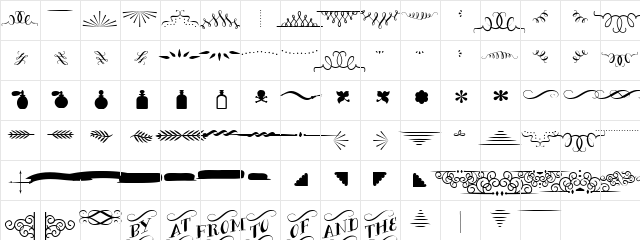
Bergamot Ornaments Regular
| Foundry | Emily Conners |
| Designer | Emily Conners |
Design Context for Bergamot Ornaments Typeface
Bergamot Ornaments is built around its visual character rather than neutral utility — its distinctive forms are designed to make an impression at display sizes.
Font Pairing: Pair with a clean neutral sans-serif for body copy to let Bergamot Ornaments's character lead without overwhelming the composition.
Pro Tip: Use Bergamot Ornaments exclusively at display sizes — it was designed to be seen, not read at length. Let a neutral companion handle body copy.